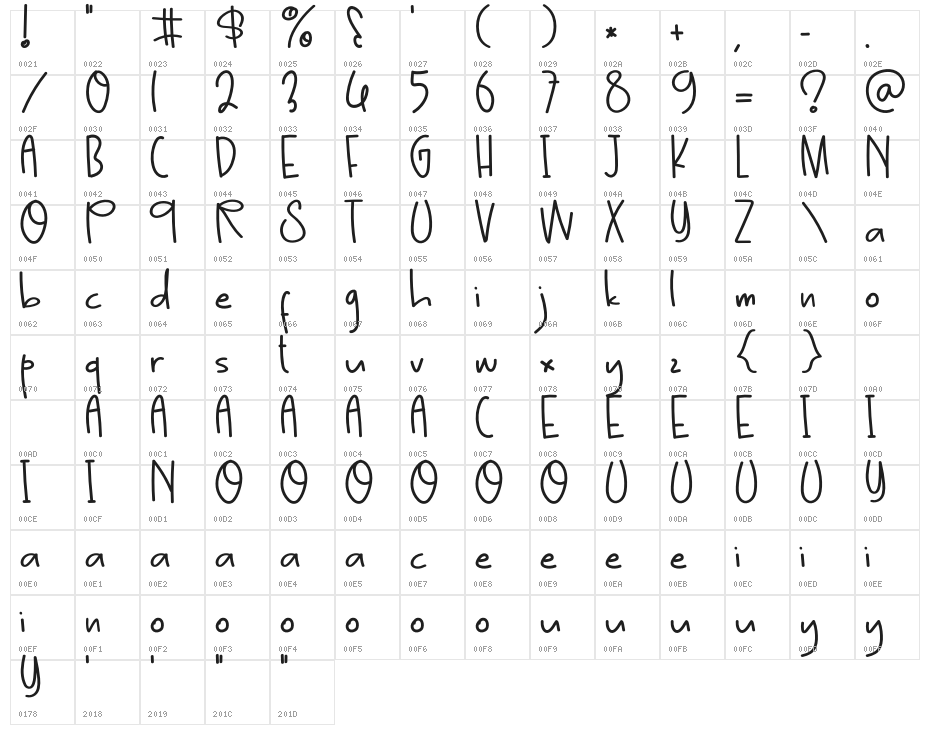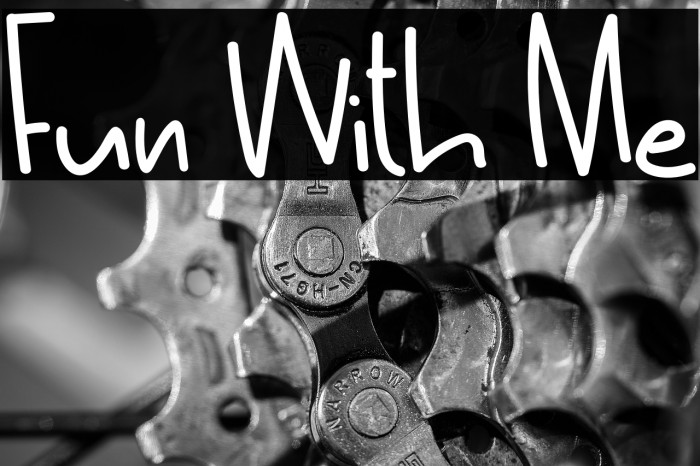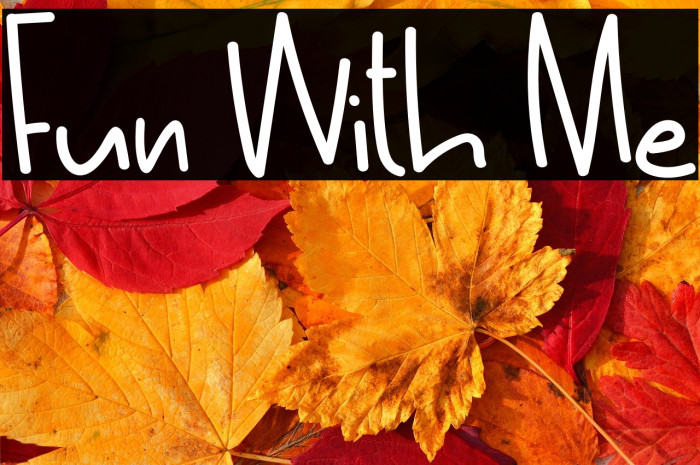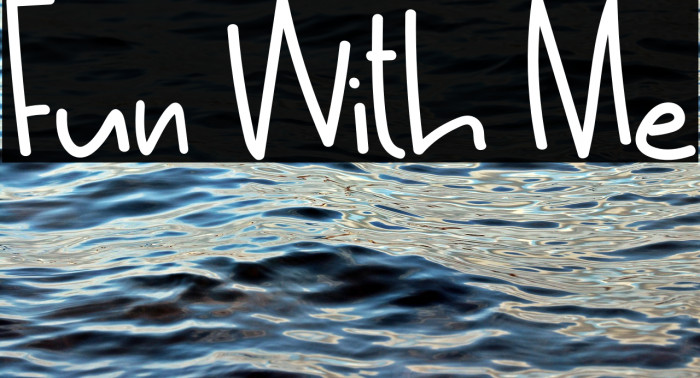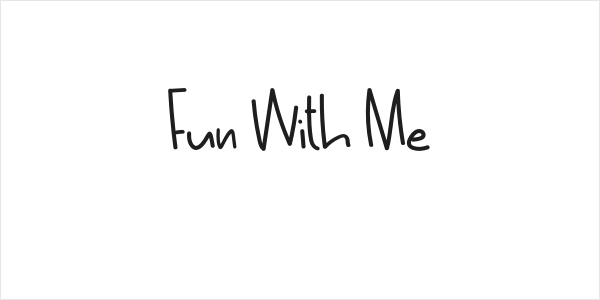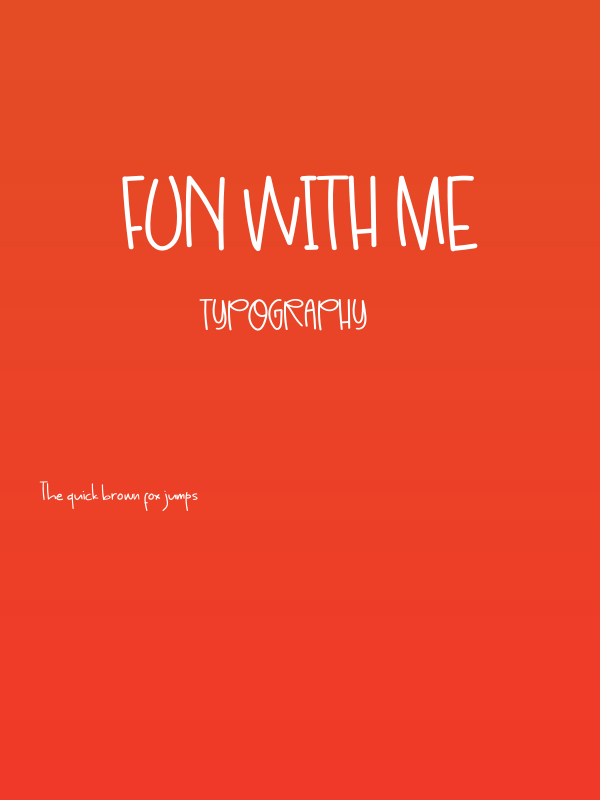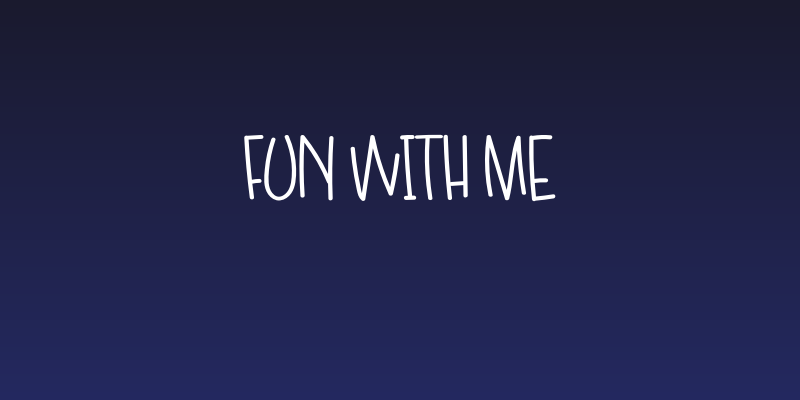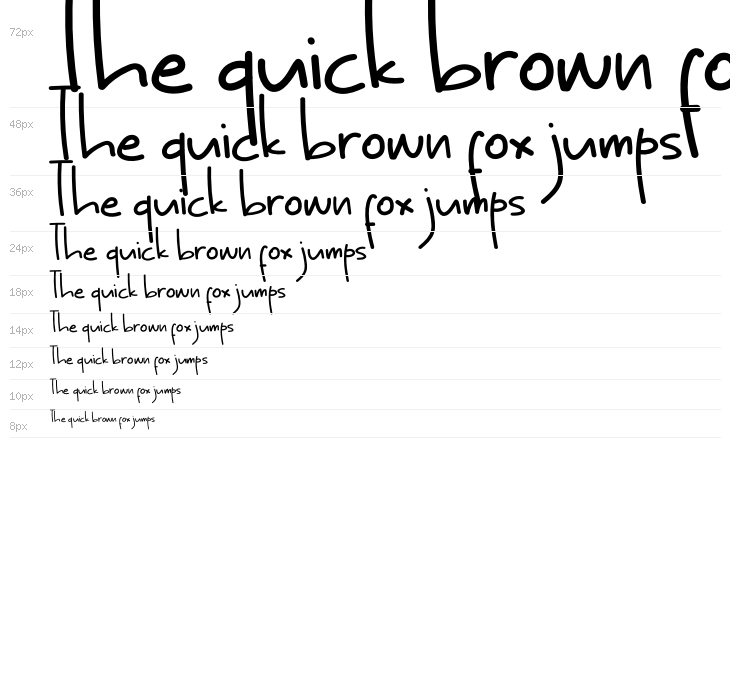
Fun With Me Font
This playful and whimsical font features a hand-drawn aesthetic with irregular, slightly wobbly lines that give it a casual and friendly appearance. The uppercase letters are tall and narrow, while the lowercase letters maintain a consistent height, adding to the font's quirky charm. Numbers and special characters follow the same playful style, making them ideal for creative projects. The font's unique character spacing and uneven stroke thickness contribute to its informal and approachable vibe, perfect for projects that require a touch of fun and creativity.
| Overall Style | Whimsical |
| Use Case | Headlines, Logos, Creative projects |
| Proposed Projects | Ideal for children's books, greeting cards, playful branding, and creative posters. |